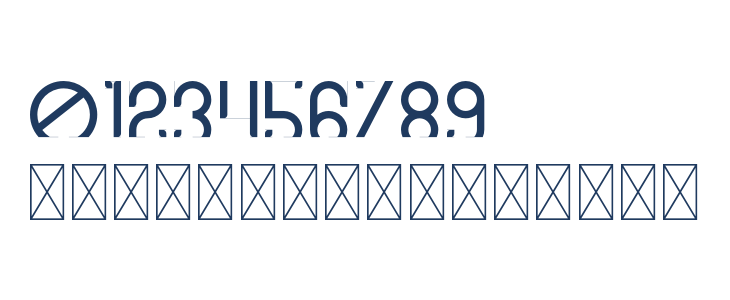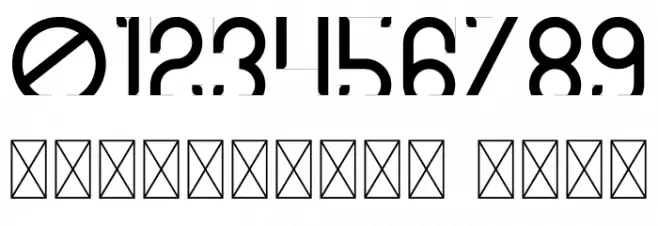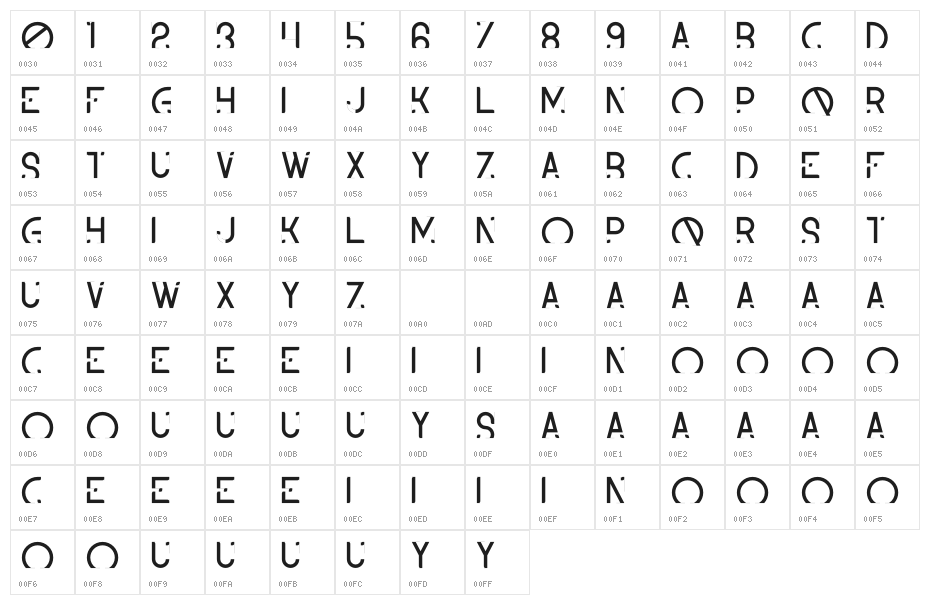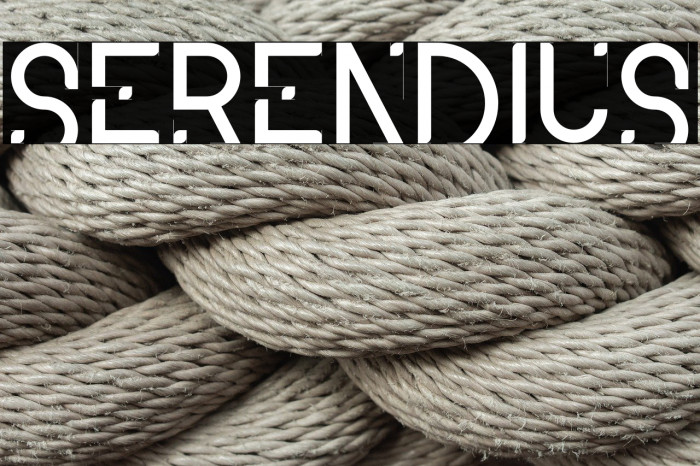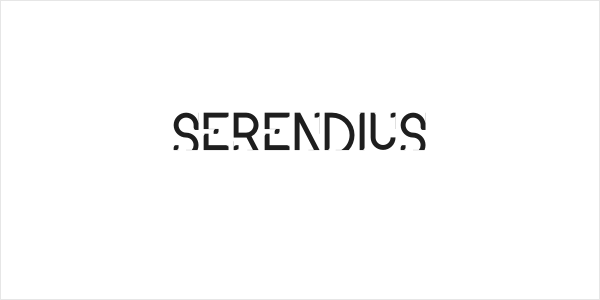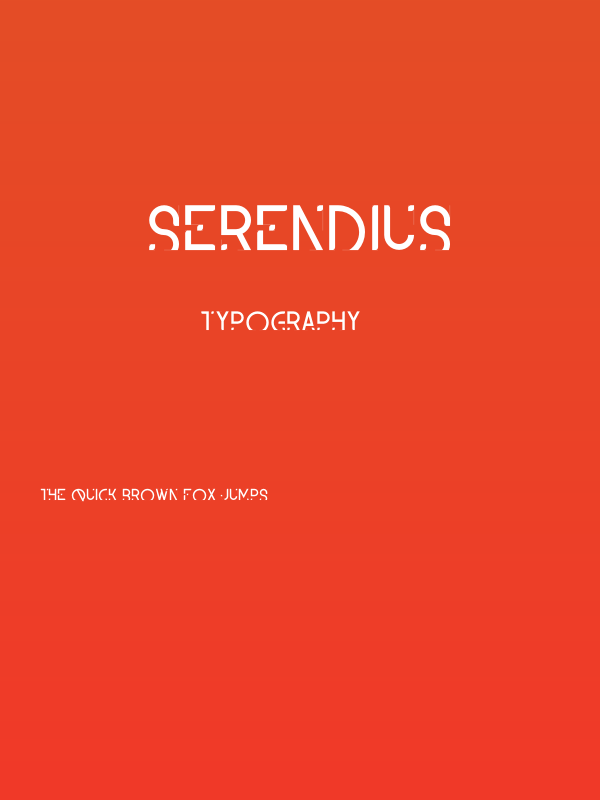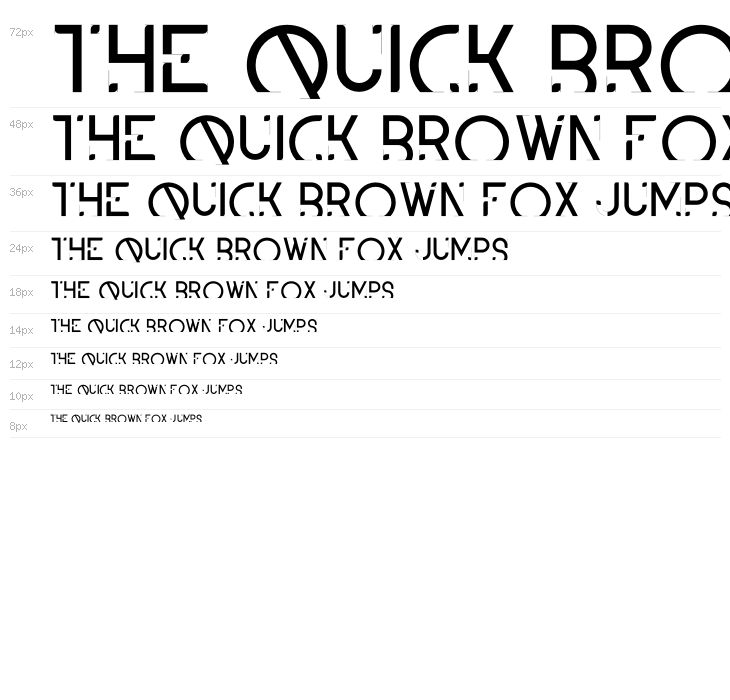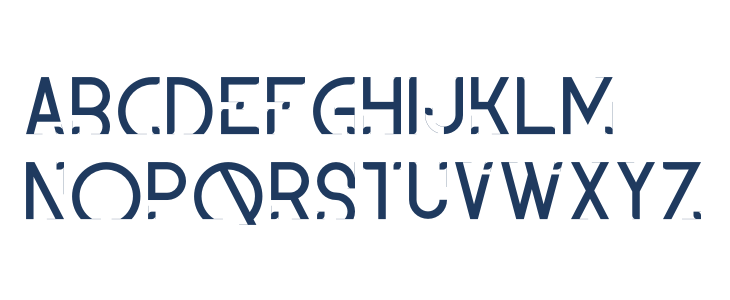
Serendius Font
Serendius Description
This font features a modern and geometric design with a unique, futuristic aesthetic. The characters are constructed with a combination of solid and cut-out sections, creating a distinctive look that is both bold and innovative. The uppercase and lowercase letters maintain a consistent style, with angular shapes and precise lines. The numbers follow the same design principles, ensuring uniformity across all characters. The special characters are also designed to match the overall style, making this font suitable for creative and contemporary projects.
A modern, geometric font with a futuristic and innovative design from Uncategorized fonts.
- Proposed Projects: Ideal for branding, logos, posters, and digital media that require a modern and edgy look.